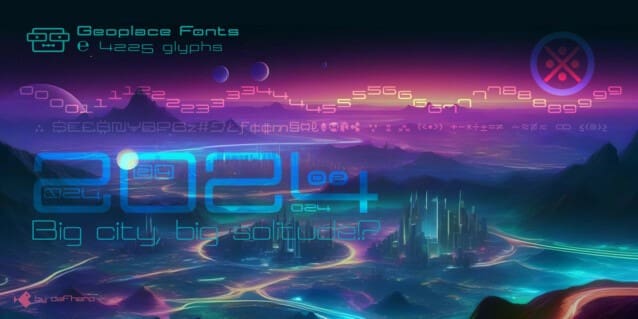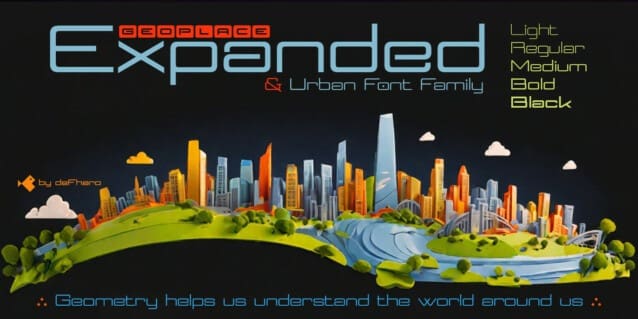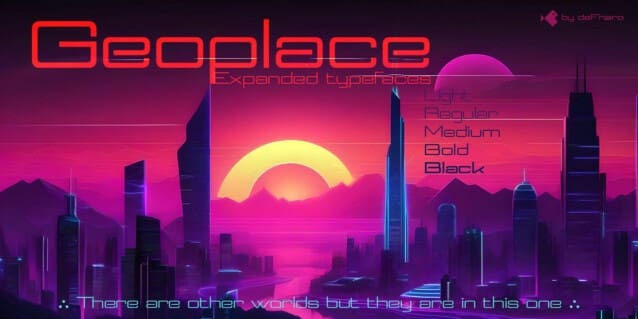
Geoplace Extended Font
Geoplace Extended Font, an expanded proportion sans serif typeface family, imbued with futuristic urban style and technological inspiration, reflecting my passion for design and geometric precision to achieve unique aesthetics and exceptional legibility.